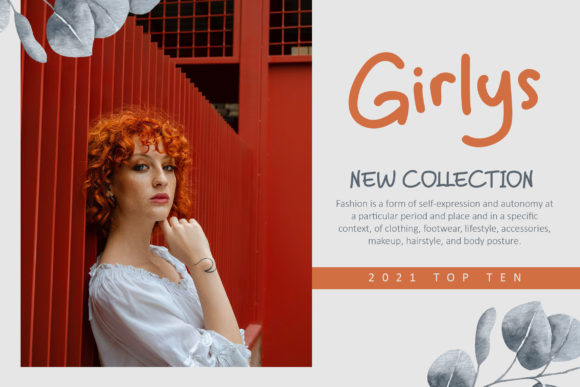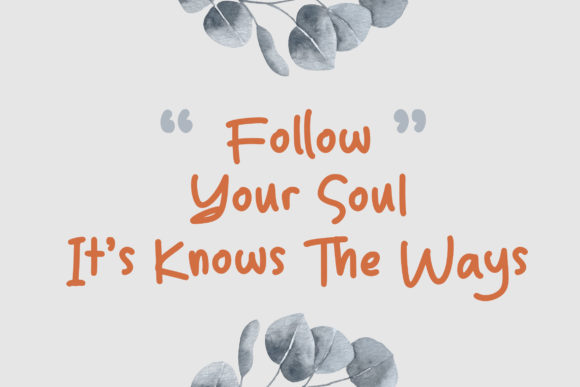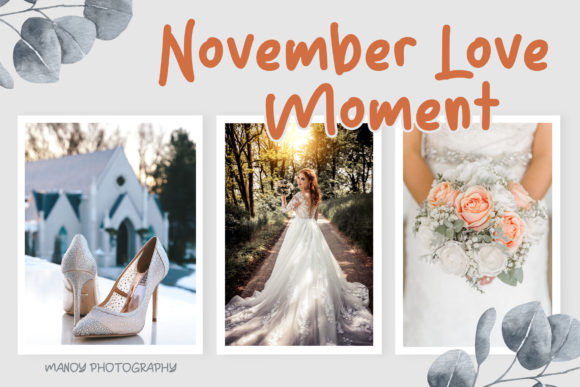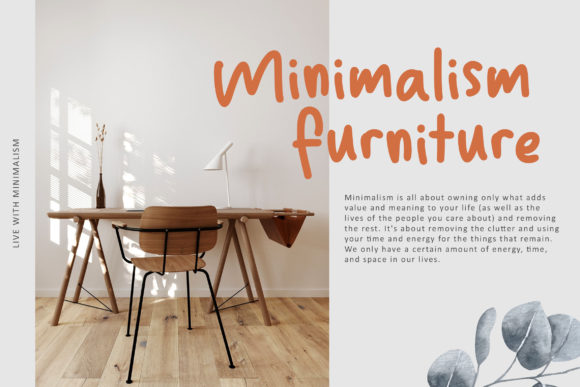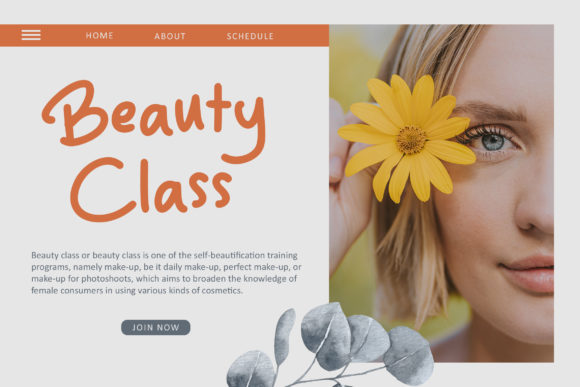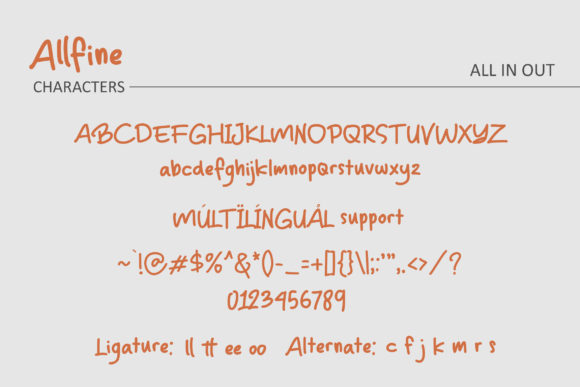
Discover the Charm of Allfine Font: A Cute and Quirky Handwritten Font
Are you tired of using the same old fonts for your creative projects? Look no further than Allfine Font, a delightful handwritten font that adds a relaxed touch to any design. With its cute, quirky, and informal style, Allfine is the perfect choice for designers and crafters who want to infuse their work with a casual vibe.
The Allure of Allfine Font
Allfine Font is a unique and charming typeface that stands out from the crowd. Its cool style and casual vibe make it an excellent choice for a wide range of creative projects, from social media graphics and blog posts to invitations and crafts. Whether you’re a professional designer or a DIY enthusiast, Allfine Font is sure to become a go-to choice for adding a personal touch to your work.
What Makes Allfine Font So Special?
So, what sets Allfine Font apart from other fonts? Here are just a few of its standout features:
- Cute and Quirky: Allfine Font has a playful, informal style that’s perfect for adding a touch of whimsy to your designs.
- Handwritten Charm: With its handwritten feel, Allfine Font adds a personal touch to any project, making it feel more approachable and relatable.
- Casual Vibe: Allfine Font has a relaxed, casual vibe that’s perfect for creating social media graphics, blog posts, and other online content.
- Versatile: Whether you’re designing for print or digital, Allfine Font is versatile enough to work beautifully in a wide range of applications.
Uses for Allfine Font
Allfine Font is a versatile typeface that can be used in a wide range of creative projects, including:
- Social Media Graphics: Add a personal touch to your social media graphics, such as Instagram posts, Facebook updates, and Twitter headers.
- Blog Posts: Use Allfine Font to add a casual, approachable vibe to your blog posts and articles.
- Invitations: Create beautiful, one-of-a-kind invitations for parties, weddings, and other special events.
- Crafts: Add a personal touch to your handmade crafts, such as scrapbooking, card making, and DIY projects.
Tips for Using Allfine Font
Here are a few tips for getting the most out of Allfine Font:
- Pair it with Other Fonts: Experiment with pairing Allfine Font with other fonts to create a unique and eye-catching combination.
- Use it for Headings: Use Allfine Font for headings and titles to add a pop of personality to your designs.
Allfine Font is a charming, quirky, and informal handwritten font that’s perfect for adding a relaxed touch to your creative projects. With its cute and playful style, Allfine Font is sure to become a go-to choice for designers and crafters who want to infuse their work with a casual vibe. So why wait? Give Allfine Font a try today and see the difference it can make in your designs!
Whether you’re a seasoned designer or just starting out, Allfine Font is a great addition to your font library. Its versatility, charm, and casual vibe make it an excellent choice for a wide range of creative projects. So go ahead, get creative, and see what amazing things you can do with Allfine Font!